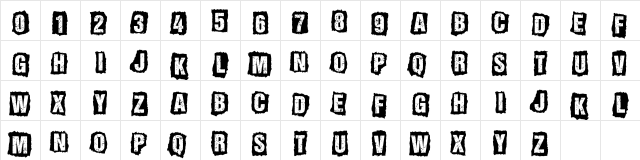
ALL AGES Regular
Foundry: Kevin Christopher
Designer: Kevin Christopher
Design Context for ALL AGES
ALL AGES is a composed and adaptable typeface that performs quietly and consistently across a wide range of design contexts.
Who designed the ALL AGES Regular font?